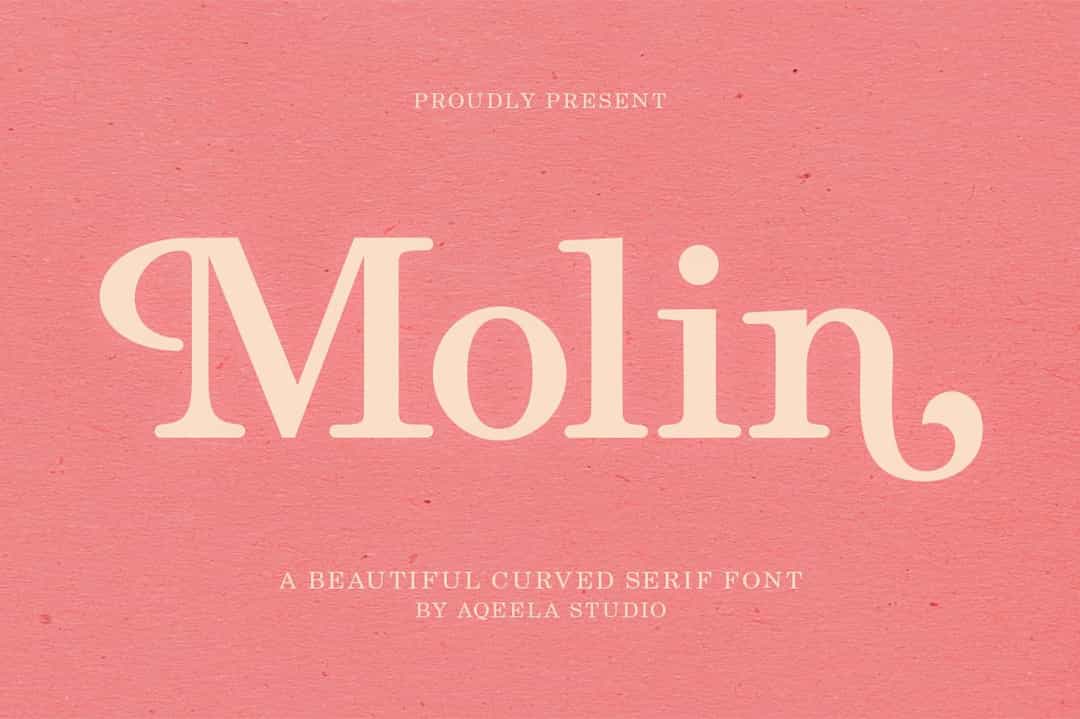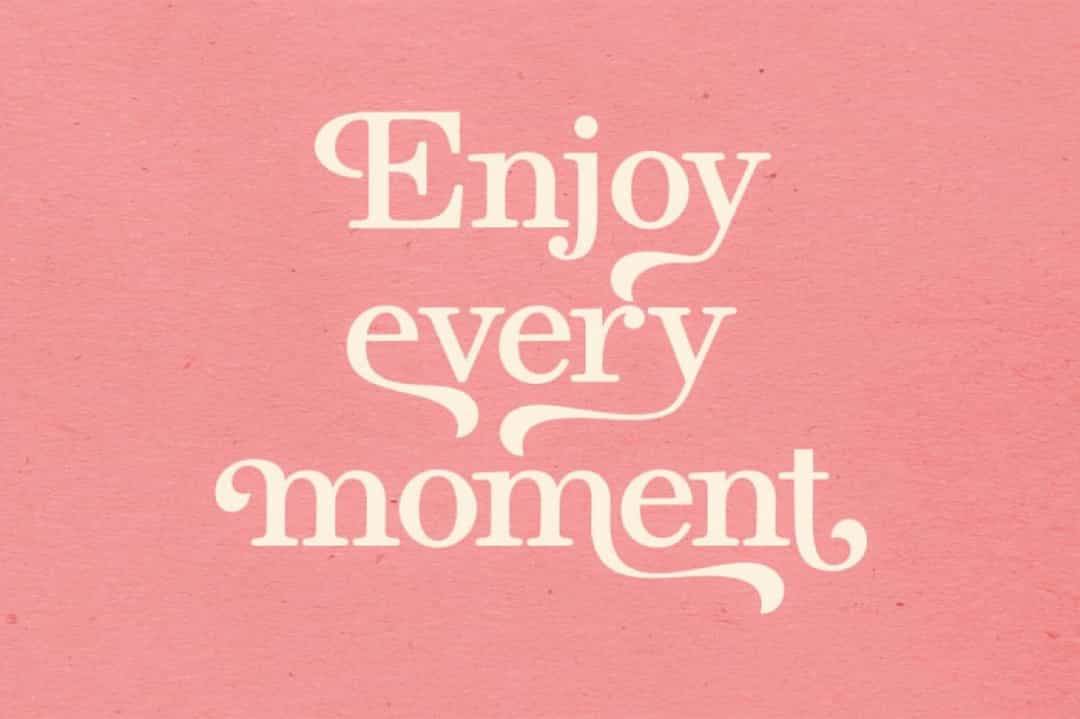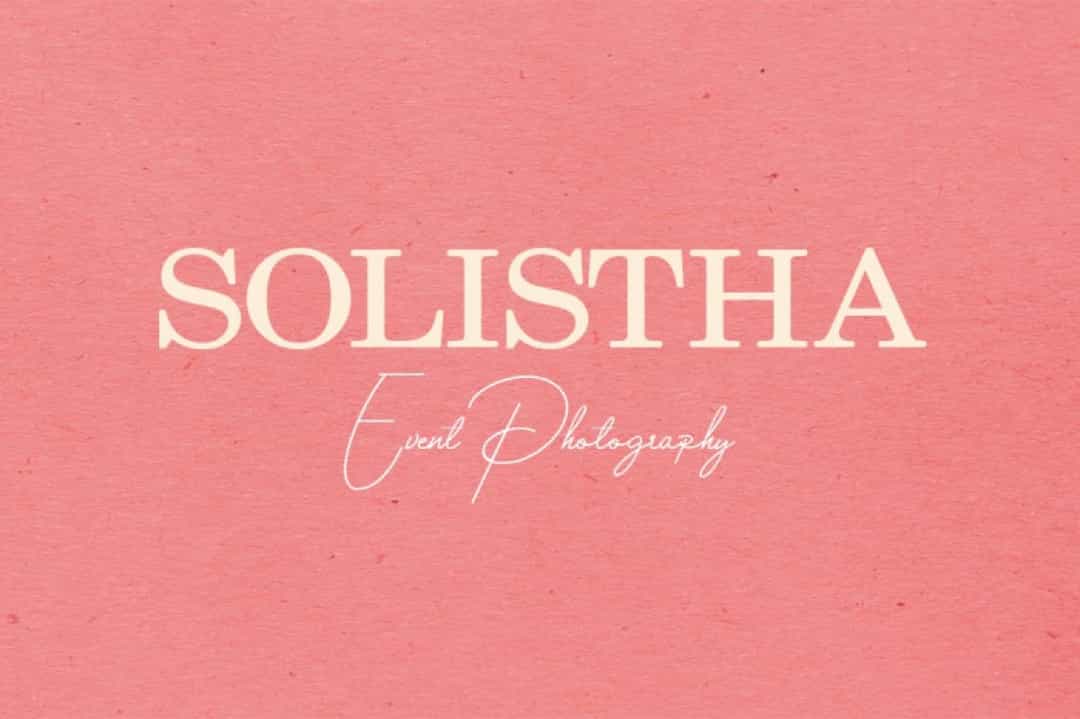
Molin is a beautiful serif font with an incredibly authentic feel. Get inspired by its bold charm, and turn any design idea into a true standout! This font is perfect for stickers, retro projects, craft projects, shirts, svg designs, procreate designs, branding, blogs, logos, invitations and more!